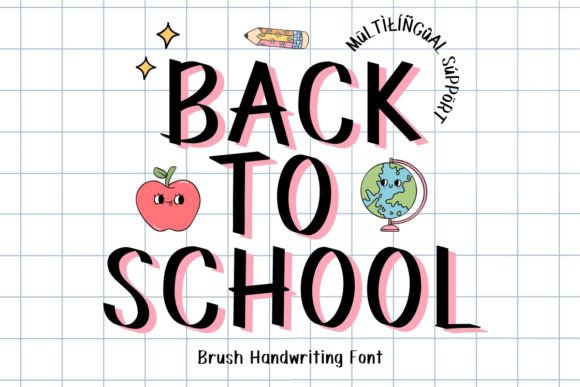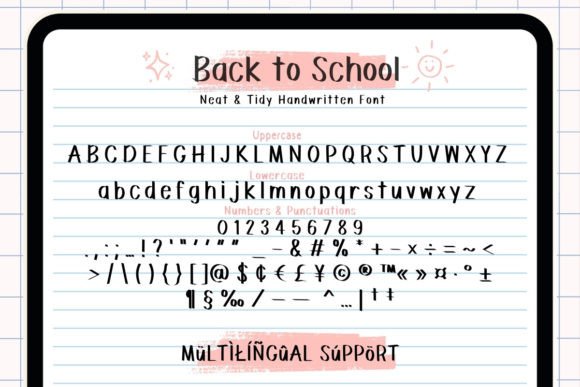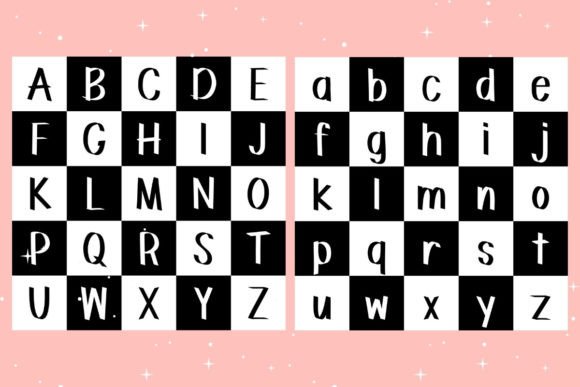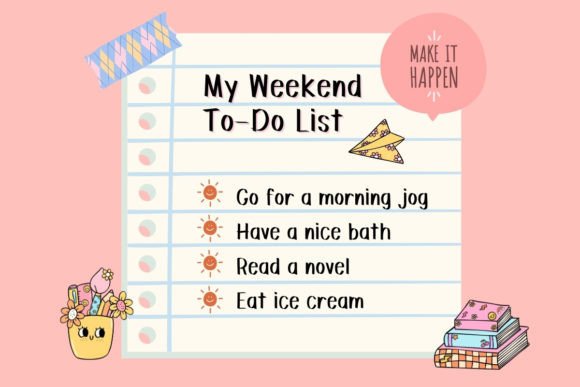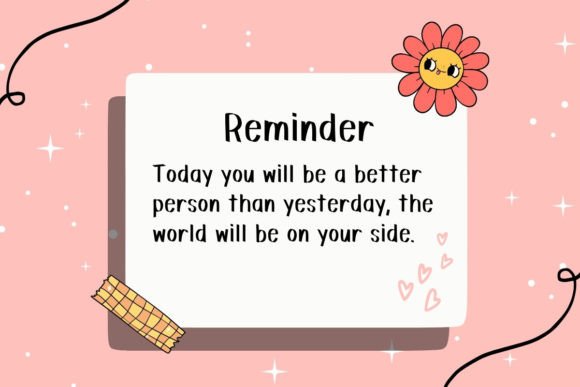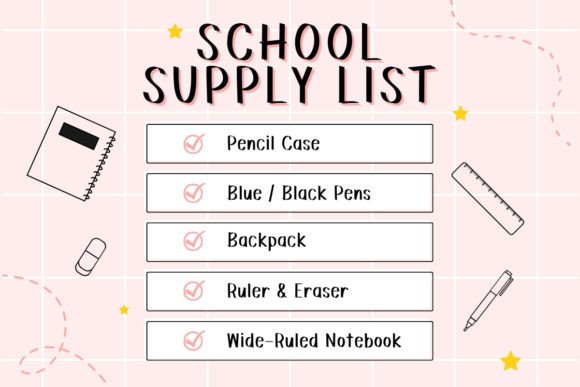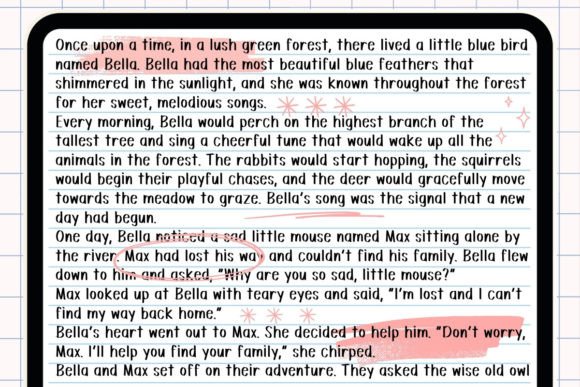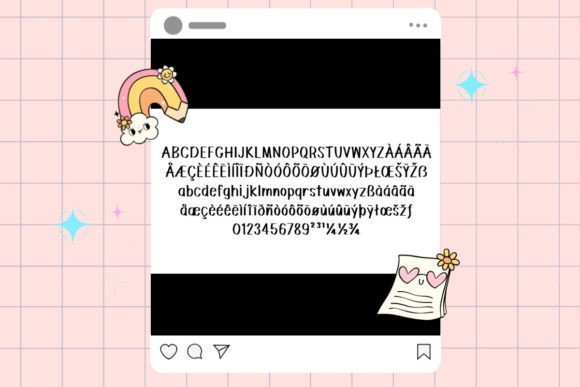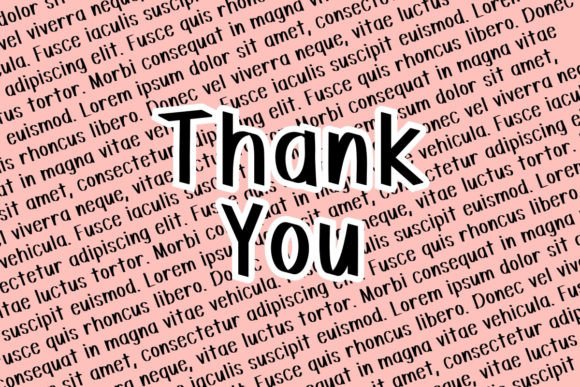
Back to School Font
Back to School Font: Neat and Tidy Brush Handwriting for All Your Projects
Introducing “Back to School,” a delightful brush handwriting font that brings a touch of neatness and charm to every project. Perfect for school assignments, student notes, teacher notes, digital planners, social media content, diaries, and more, “Back to School” offers a clean and organized style that enhances the readability and attractiveness of your writing.